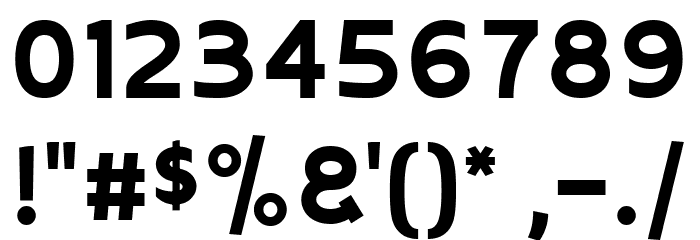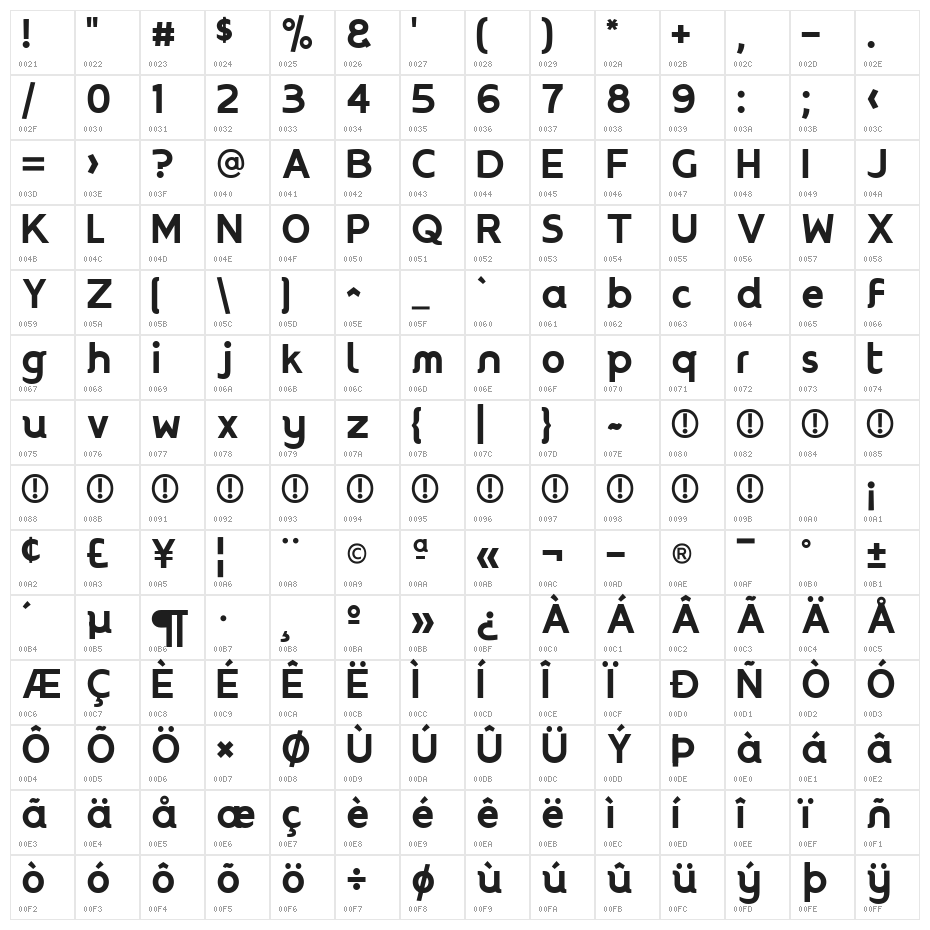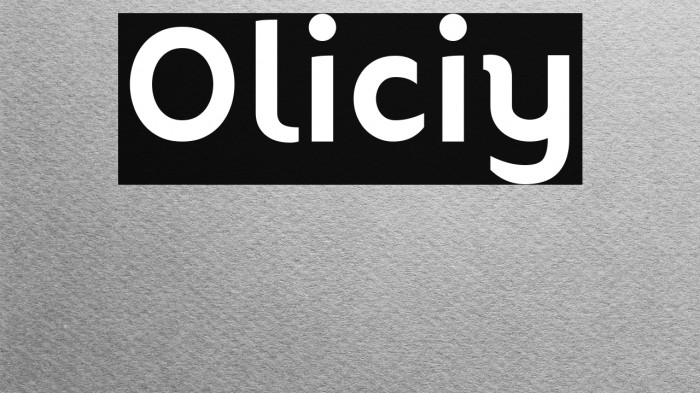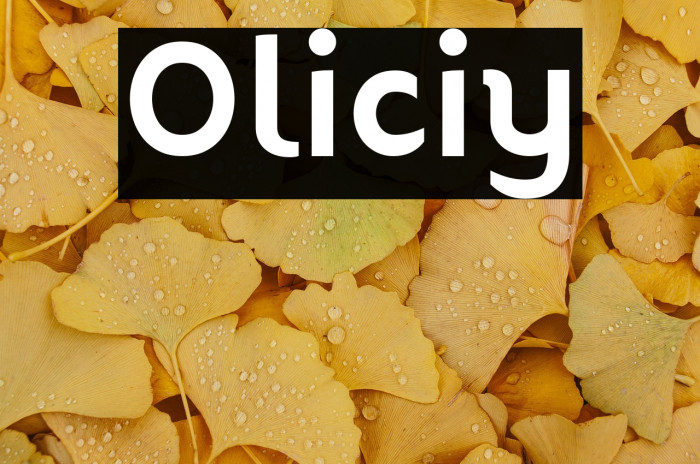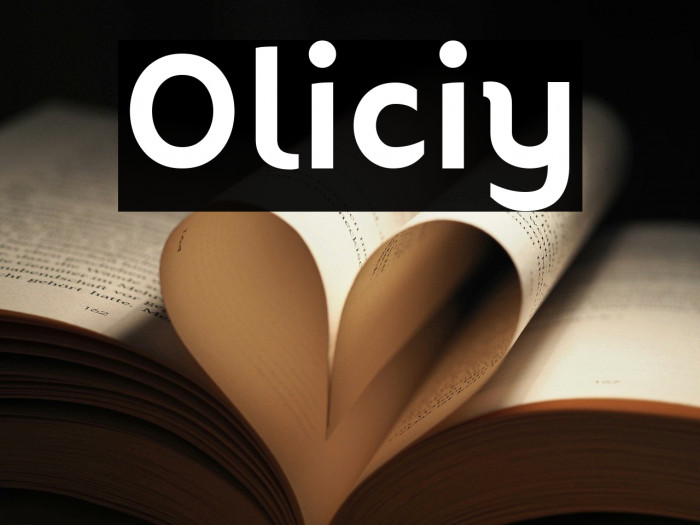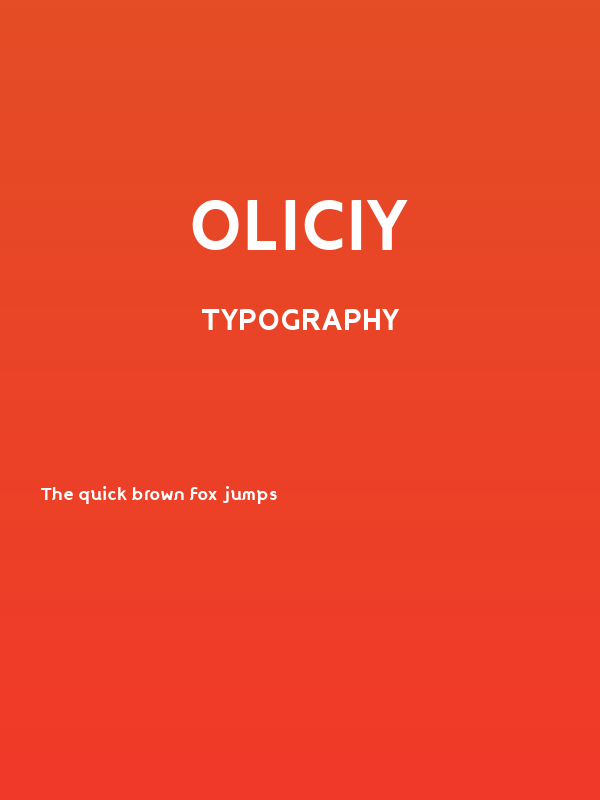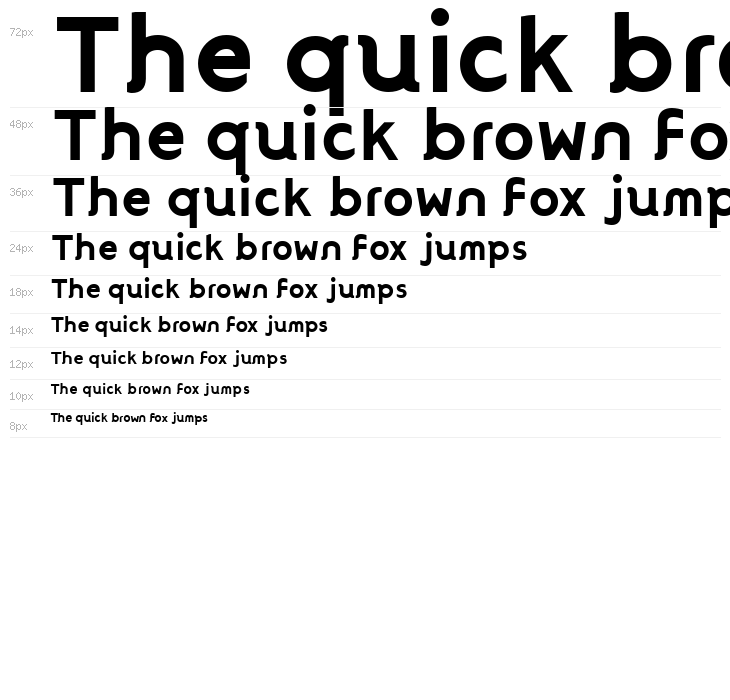
Oliciy Font
Oliciy Description
This font features a clean and modern sans-serif design with smooth, rounded edges that give it a friendly and approachable appearance. The characters are evenly spaced, providing a balanced and harmonious look. The uppercase letters are bold and assertive, while the lowercase letters maintain a consistent style with slightly softer curves. The numerals are clear and easy to read, making them suitable for various applications. Special characters are well-integrated, maintaining the overall aesthetic of the font. This typeface is versatile, suitable for both digital and print media, and can be used effectively in a variety of design projects.
| Proposed Projects | Ideal for branding, web design, advertising, and editorial projects. |